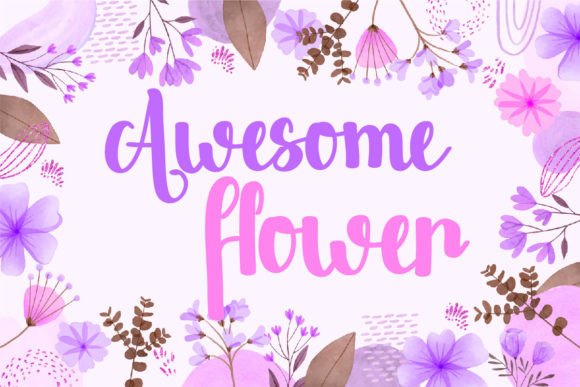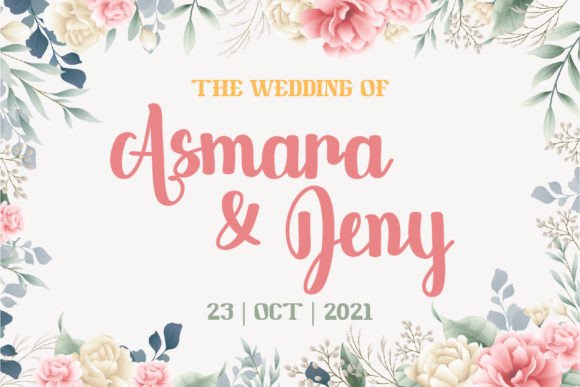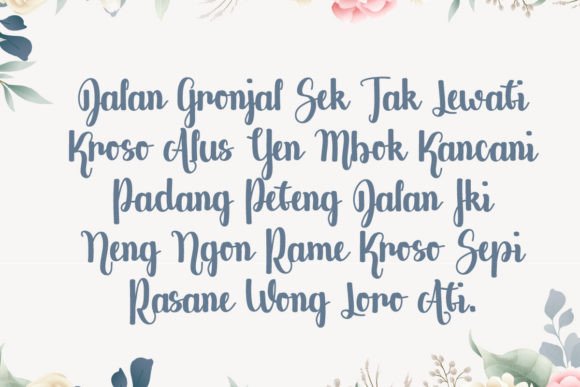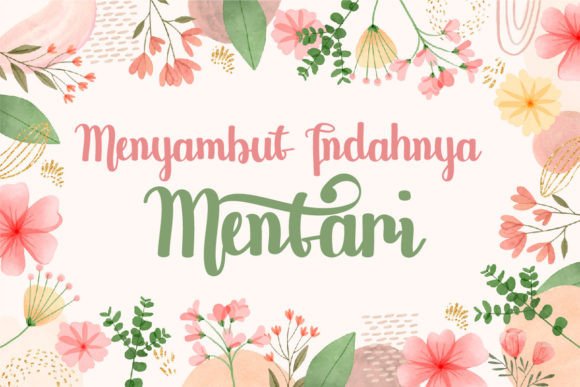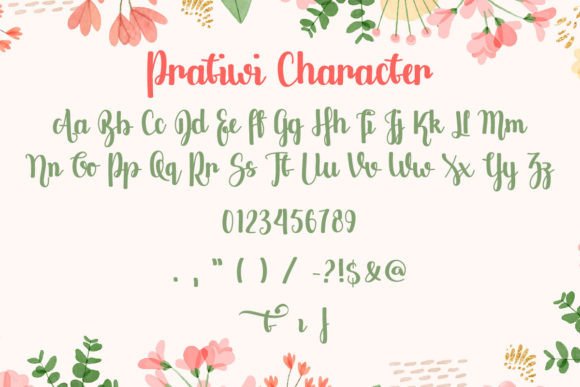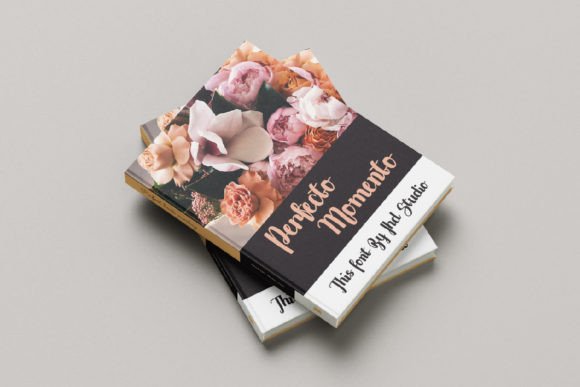
Introduction to Pratiwi Font
Pratiwi is the epitome of elegance and playfulness, our stylish and cute script font is perfect for any project requiring a touch of sophistication.
With its delicate curves and charming flourishes, this font is guaranteed to add a touch of whimsy to your designs while maintaining a polished and professional look .